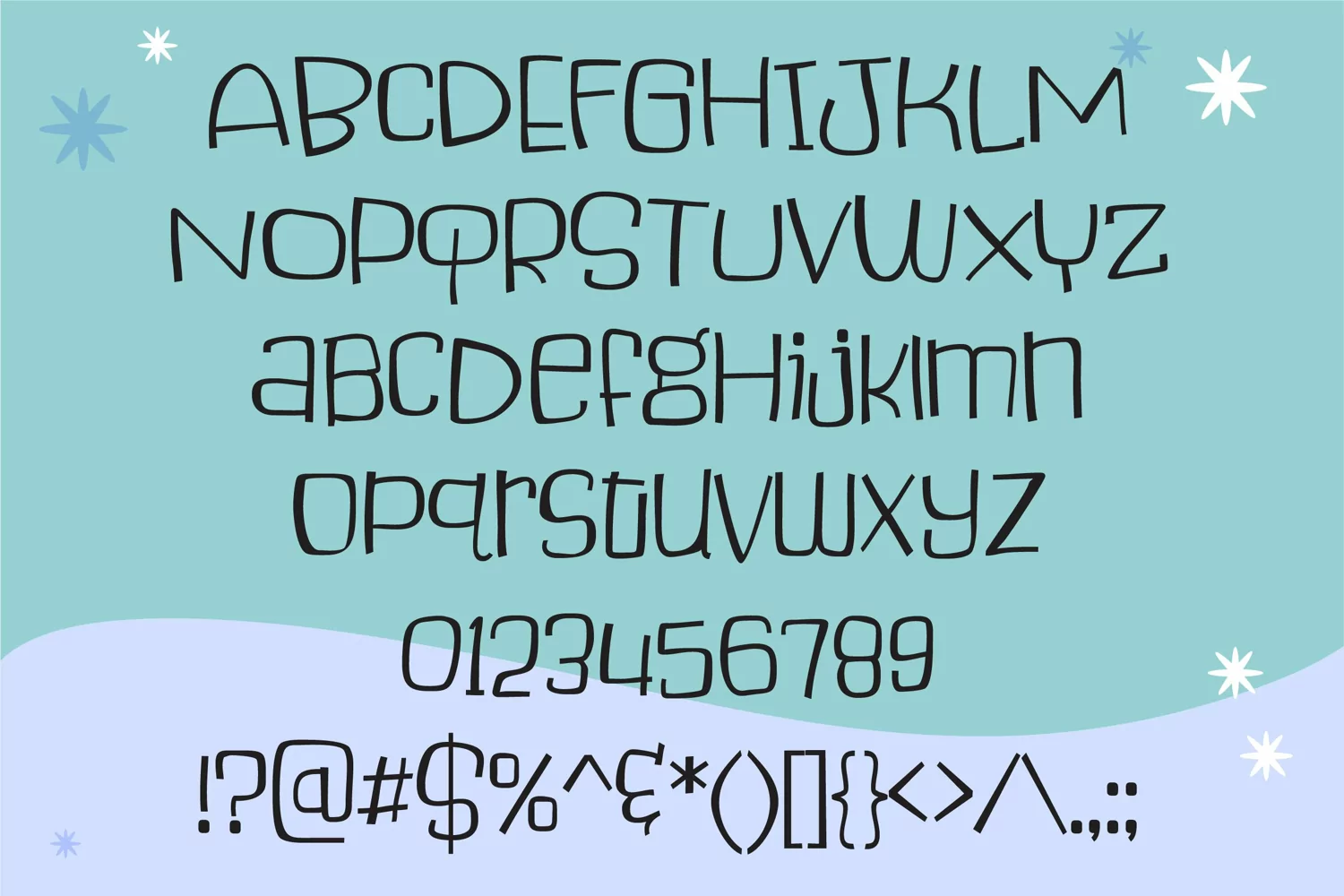
Extrospective is a fun, friendly handwritten font. No matter the topic, this font will be an incredible asset to your fonts’ library, as it has the potential to elevate any creation. Includes regular, bold, and book.